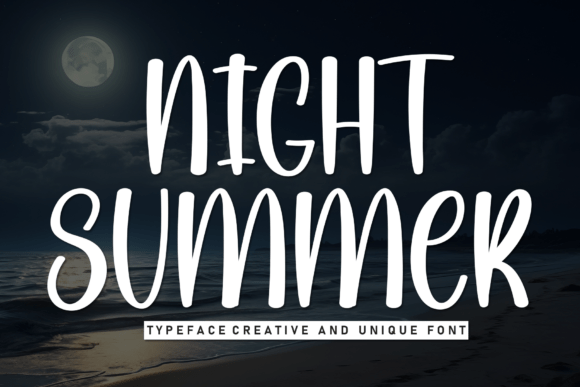
Night Summer Font: A Perfect Blend of Modern Simplicity and Playful Charm
In the world of typography, fonts play a crucial role in conveying the tone and personality of a brand or design. With numerous font styles available, selecting the right one can be overwhelming, especially when looking for a font that embodies both modern simplicity and a playful vibe. This is where the Night Summer font comes into play. A casual display font that has gained popularity for its unique blend of clean shapes, soft edges, and well-balanced letterforms, Night Summer is ideal for a wide range of design projects, from posters and branding to packaging and social media graphics.
Key Features of Night Summer Font
- Modern Simplicity: Night Summer boasts a contemporary design that is both sleek and sophisticated. Its clean shapes and soft edges give it a fresh and modern look, making it perfect for designs that require a touch of elegance.
- Playful and Approachable Vibe: Despite its modern appeal, Night Summer does not compromise on its playful and friendly charm. The font’s soft edges and rounded corners add a touch of warmth and approachability, making it suitable for designs that aim to connect with a wider audience.
- Well-Balanced Letterforms: One of the standout features of Night Summer is its well-balanced letterforms. Each character is carefully crafted to ensure that the font is not only aesthetically pleasing but also highly readable.
- Versatility: Night Summer is a versatile font that can be used across various design projects. Whether you’re working on a poster, branding materials, packaging, or social media graphics, this font can add a fresh and friendly touch to your designs.
Ideal Use Cases for Night Summer Font
Night Summer’s unique combination of modern simplicity and playful charm makes it suitable for a wide range of design projects. Here are some ideal use cases for this versatile font:
- Posters: Create eye-catching posters for events, promotions, or announcements with Night Summer. Its clean and modern design ensures that your message stands out.
- Branding: Establish a strong brand identity with Night Summer. Its playful and approachable vibe makes it perfect for brands that want to connect with their audience on a personal level.
- Packaging: Add a touch of elegance and friendliness to your product packaging with Night Summer. Its well-balanced letterforms and soft edges make it suitable for a wide range of products.
- Social Media Graphics: Enhance your social media presence with Night Summer. Create engaging graphics, quotes, and posts that reflect your brand’s personality and style.
Benefits of Using Night Summer Font
Night Summer offers several benefits that make it a popular choice among designers and brands. Here are some of the key advantages of using this versatile font:
- Readability: Night Summer’s well-balanced letterforms and clean design ensure that it is highly readable, even at smaller font sizes.
- Personality: This font adds a touch of personality to any design project. Its playful and approachable vibe makes it perfect for brands that want to establish a strong connection with their audience.
- Versatility: Night Summer can be used across various design projects, making it a valuable addition to any designer’s font collection.
- Eye-Catching Appeal: The font’s unique blend of modern simplicity and playful charm makes it eye-catching and engaging.
Tips for Using Night Summer Font Effectively
To get the most out of Night Summer, here are some tips for using it effectively in your design projects:
- Pair it with Other Fonts: Experiment with pairing Night Summer with other fonts to create a unique and visually appealing design.
- Use it for Headings: Night Summer’s playful and approachable vibe makes it perfect for headings and titles. Use it to add a touch of personality to your design.
- Adjust Font Size: Experiment with different font sizes to find the perfect balance between readability and style.
- Play with Colors: Night Summer looks great in a variety of colors. Experiment with different color combinations to find the one that works best for your design.
Night Summer font is a versatile and stylish font that offers a unique blend of modern simplicity and playful charm. Its clean shapes, soft edges, and well-balanced letterforms make it perfect for a wide range of design projects, from posters and branding to packaging and social media graphics. With its eye-catching appeal and high readability, Night Summer is an excellent choice for designers and brands looking to add a fresh and friendly touch to their designs.